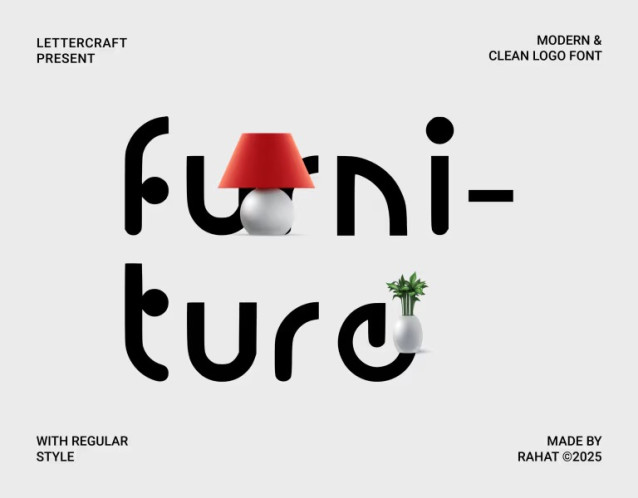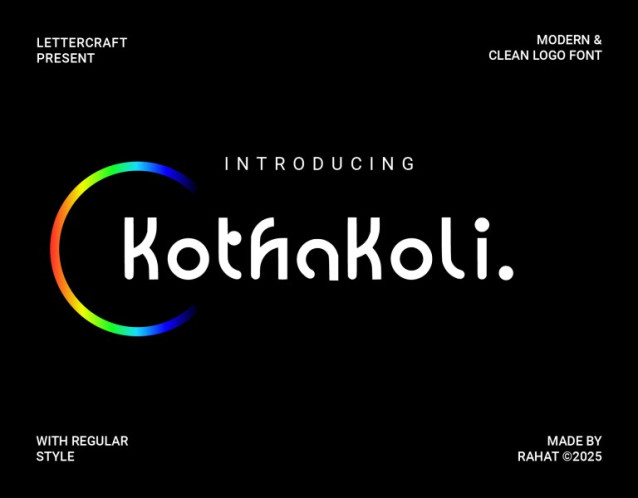
Kothakoli Font
Kothakoli Font, a refined logo font that marries contemporary clarity with subtle typographic artistry inspired by South Asian design. With its bold yet graceful strokes, Kothakoli adds cultural nuance and modern sophistication to branding, packaging, editorial design, and digital media.
Crafted with purpose, Kothakoli delivers high readability and visual strength, making it ideal for creative agencies, fashion brands, startups, and tech-forward design studios seeking a distinct identity. Its stylized letterforms and geometric elegance evoke both tradition and innovation—ensuring your visuals speak with charisma and clarity.
Kothakoli brings a timeless, expressive quality to logo design—perfect for brands that honor heritage while embracing the future.